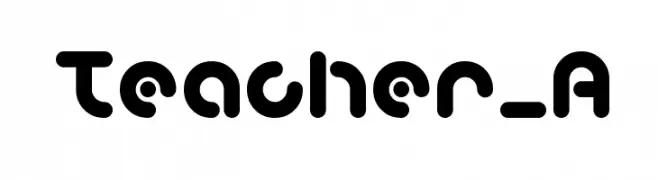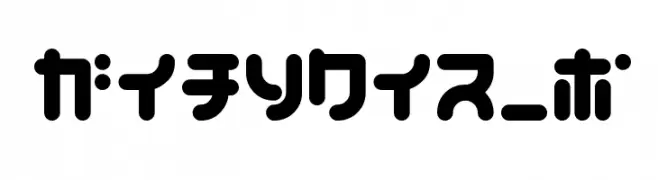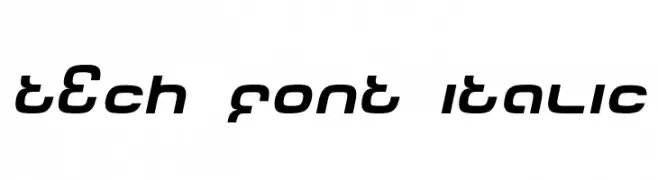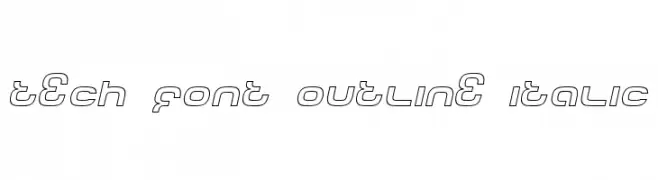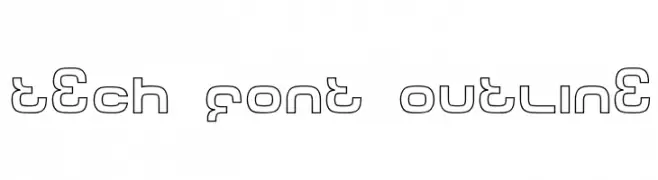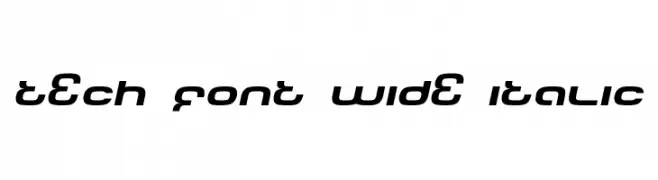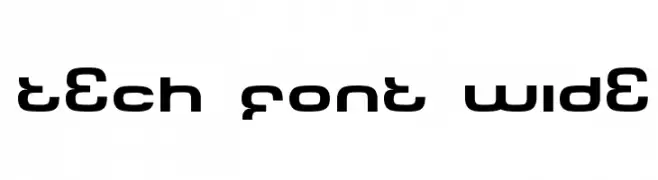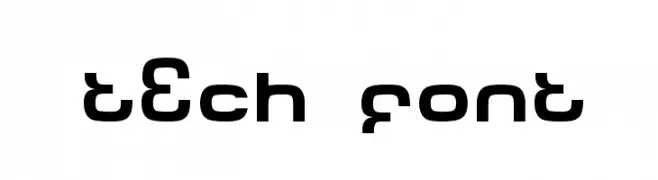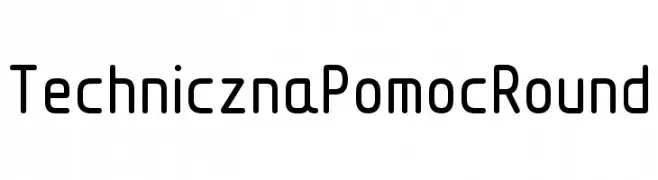
A bold, rounded font with a modern and playful style.
A bold, rounded, and modern font with a playful and approachable style.
A futuristic and geometric font with bold, rounded letterforms and consistent stroke width.
A modern, italicized font with a futuristic and dynamic style.
A modern, geometric outline font with a tech-inspired design.
A modern, outlined, italic font with a futuristic and technical design.
A futuristic, wide, and geometric font with a sleek, modern aesthetic.
A modern, wide, and italicized font with a futuristic design.
A modern, geometric sans-serif font with a clean and professional look.
A modern, rounded sans-serif font with clean lines and uniform stroke width.